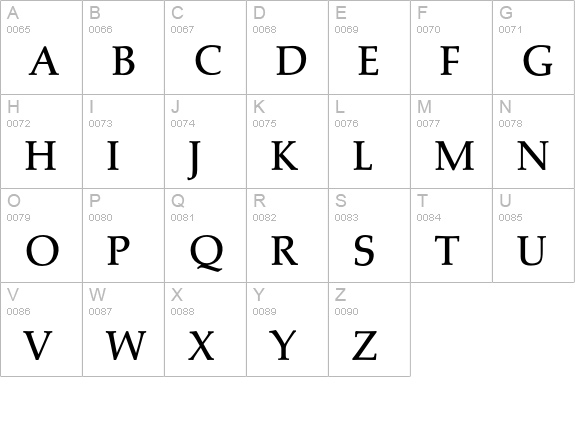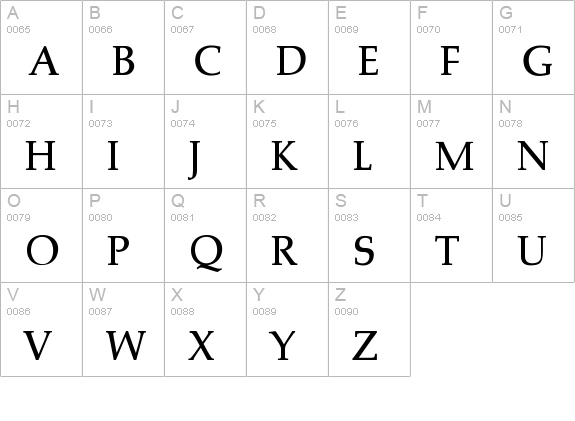
Marath-Medium is a balanced, medium-weight variant in the Marath typeface family \xE2\x80\x94 well suited to sub-headlines, navigation, and balanced editorial work.
Marath-Medium font is a stunning typeface that combines elegance with modernity. Its sleek and stylish design makes it perfect for a wide range of projects, from branding and advertising to editorial and web design. With its balanced letterforms and versatile character set, Marath-Medium font is sure to captivate and engage audiences. What sets Marath-Medium font apart is not just its exceptional aesthetics, but also its accessibility. This font is freely available to download at FontsMarket.com, allowing designers and enthusiasts alike to utilize its beauty without any cost or limitations. Whether you are a professional designer looking to enhance your projects or an individual seeking to add a touch of sophistication to your personal creations, Marath-Medium font is the ideal choice. The attention to detail in Marath-Medium font is evident in every curve and stroke. The graceful lines and subtle variations in weight create a harmonious balance that is pleasing to the eye. This font is highly legible, ensuring that your message comes across clearly and effectively. With a vast range of glyphs and ligatures, Marath-Medium font offers endless possibilities for creative expression. It supports multiple languages, making it suitable for international projects and communication. Whether you are designing a logo, a poster, a website, or any other visual content, Marath-Medium font will elevate your work to new heights. In addition to its stunning design and versatility, Marath-Medium font is also optimized for digital use. It is compatible with various software and platforms, ensuring a seamless experience across different devices and mediums. Whether your audience is viewing your work on a desktop computer, a smartphone, or a tablet, Marath-Medium font will deliver a consistent and visually pleasing experience. Experience the beauty and versatility of Marath-Medium font today by downloading it for free at FontsMarket.com. Unlock your creative potential and bring your designs to life with this exceptional typeface.